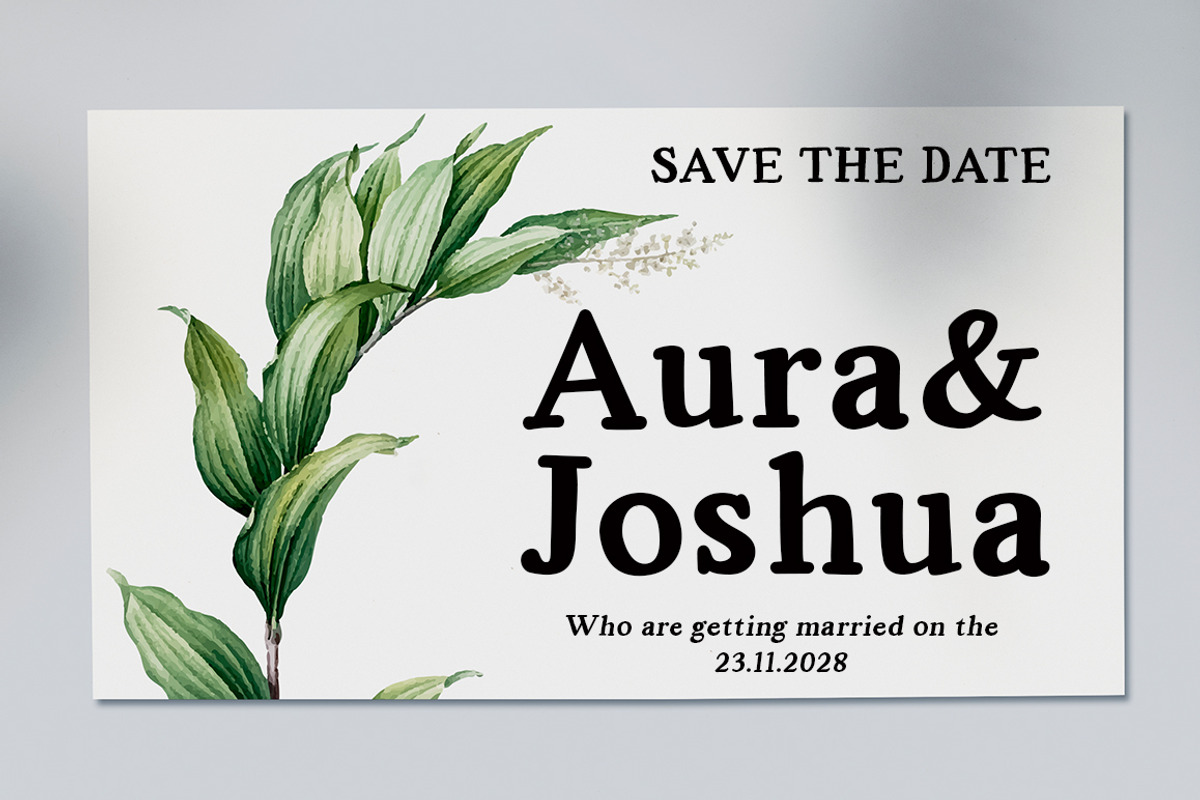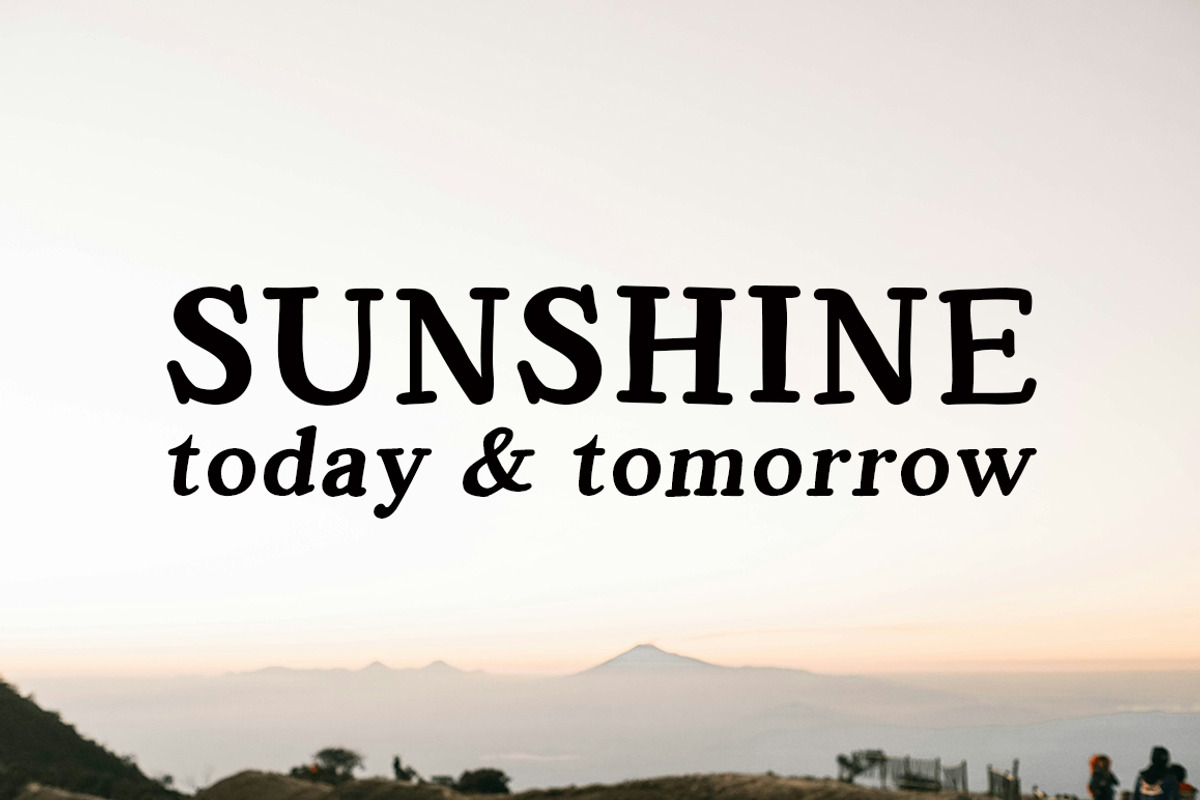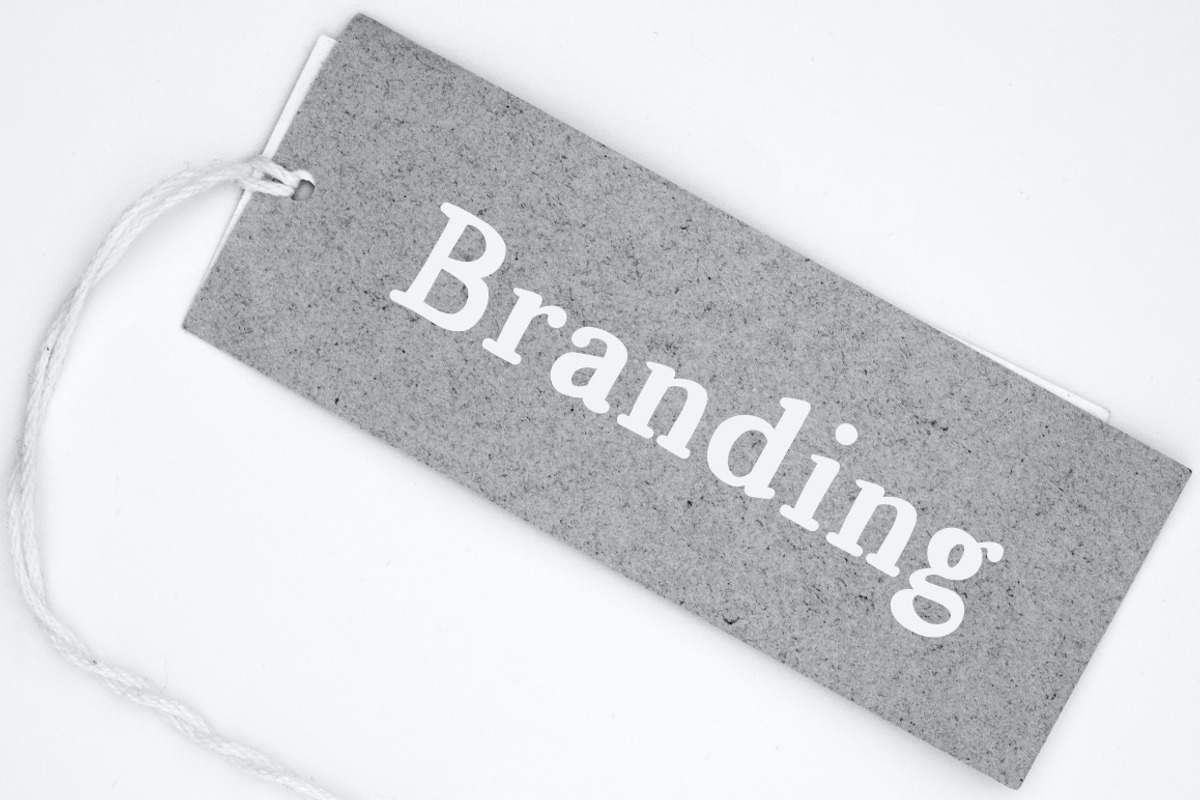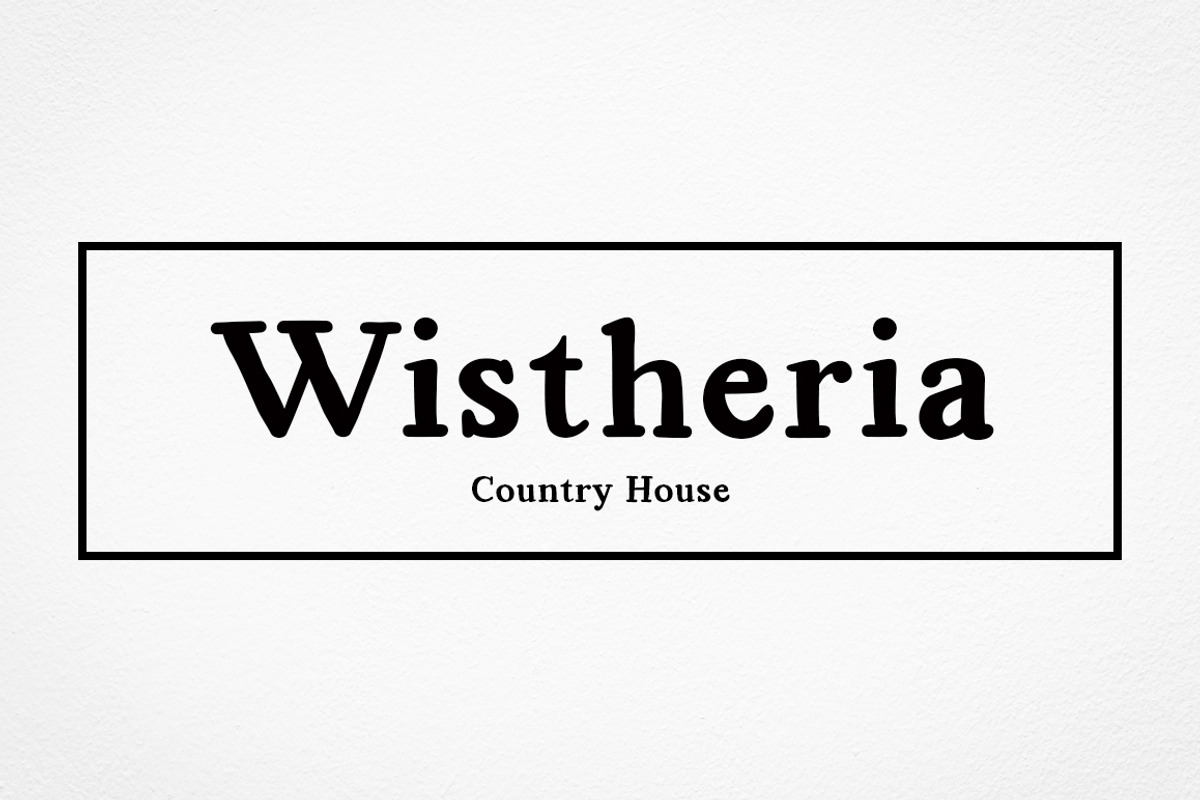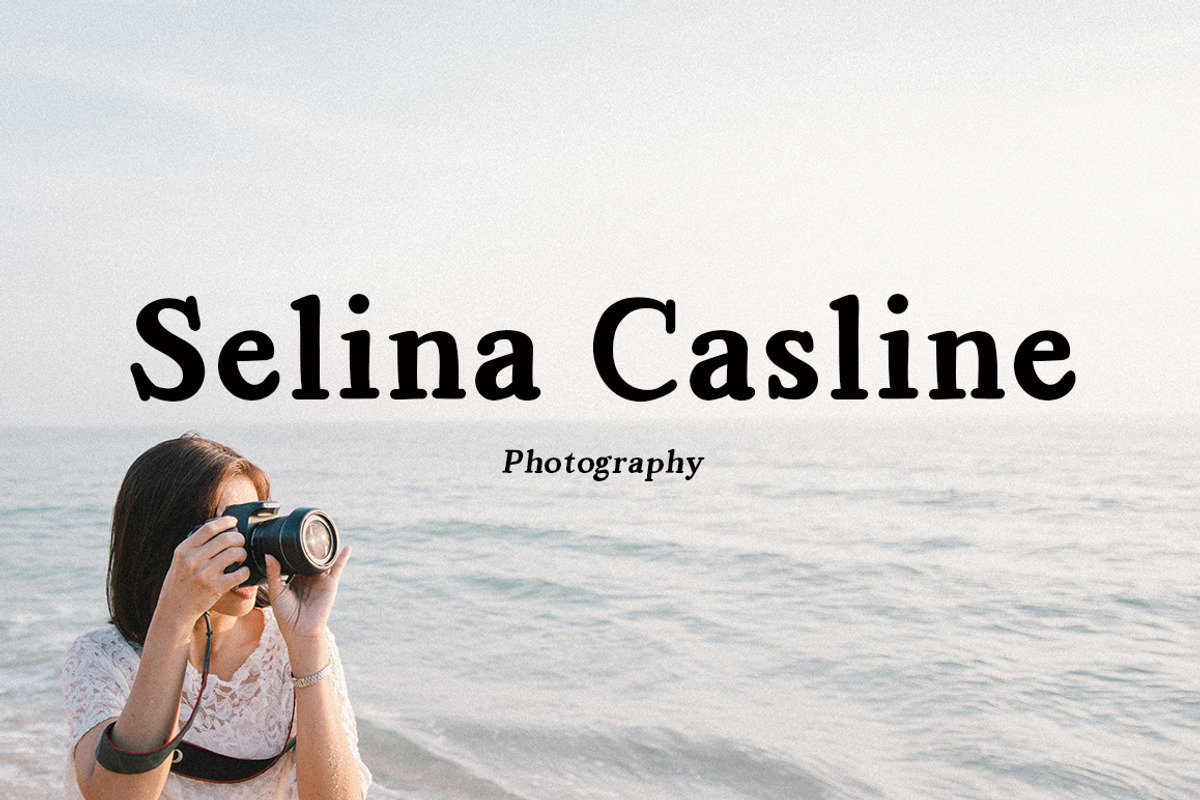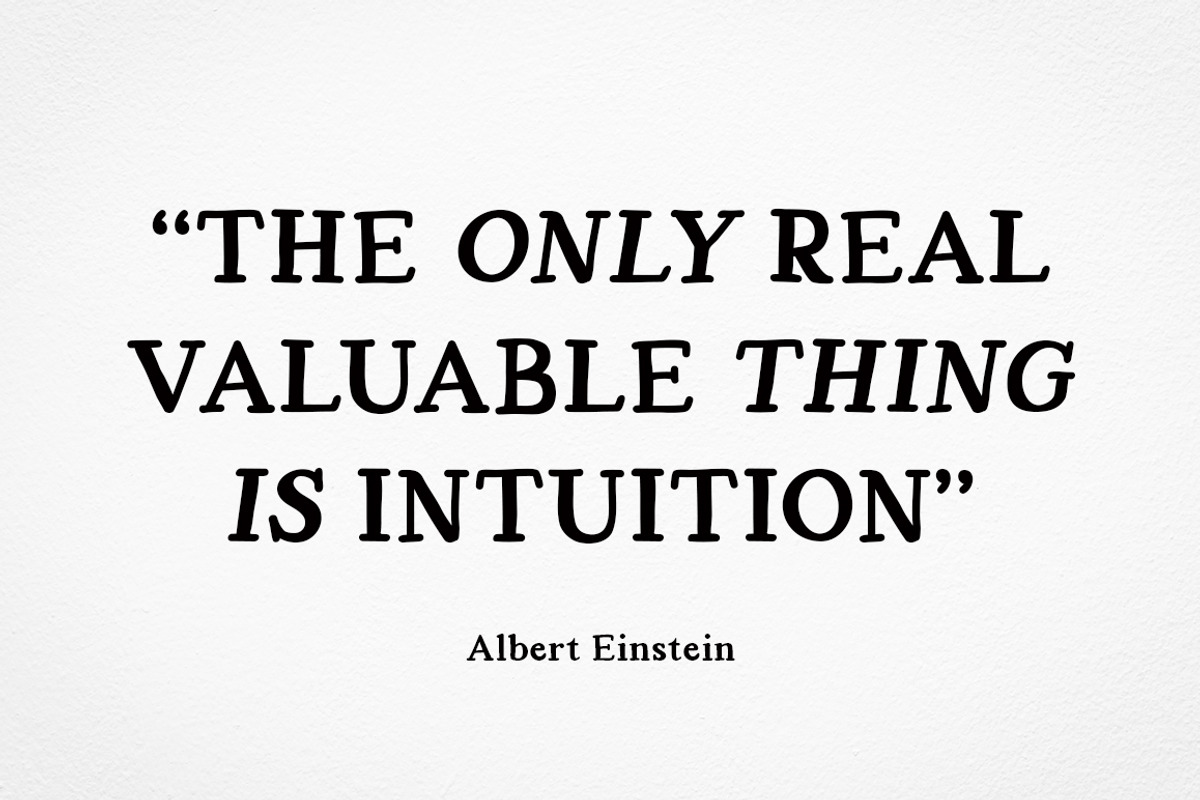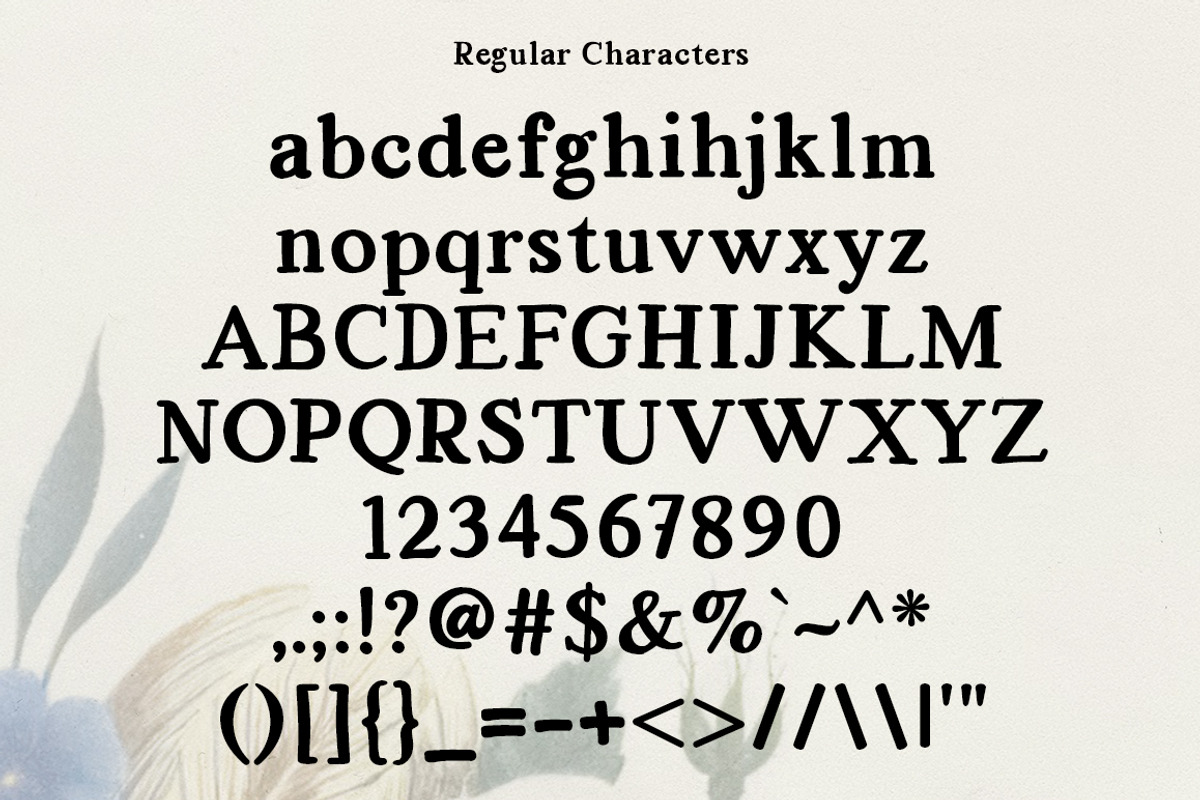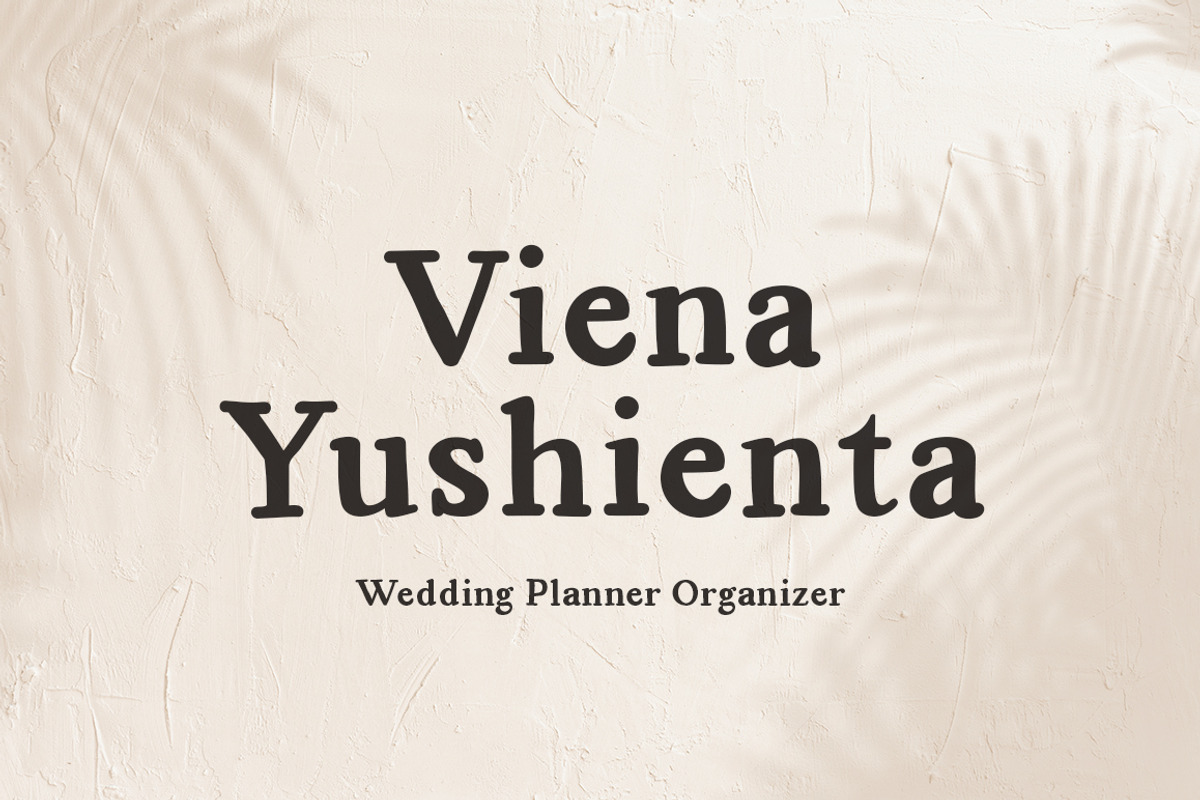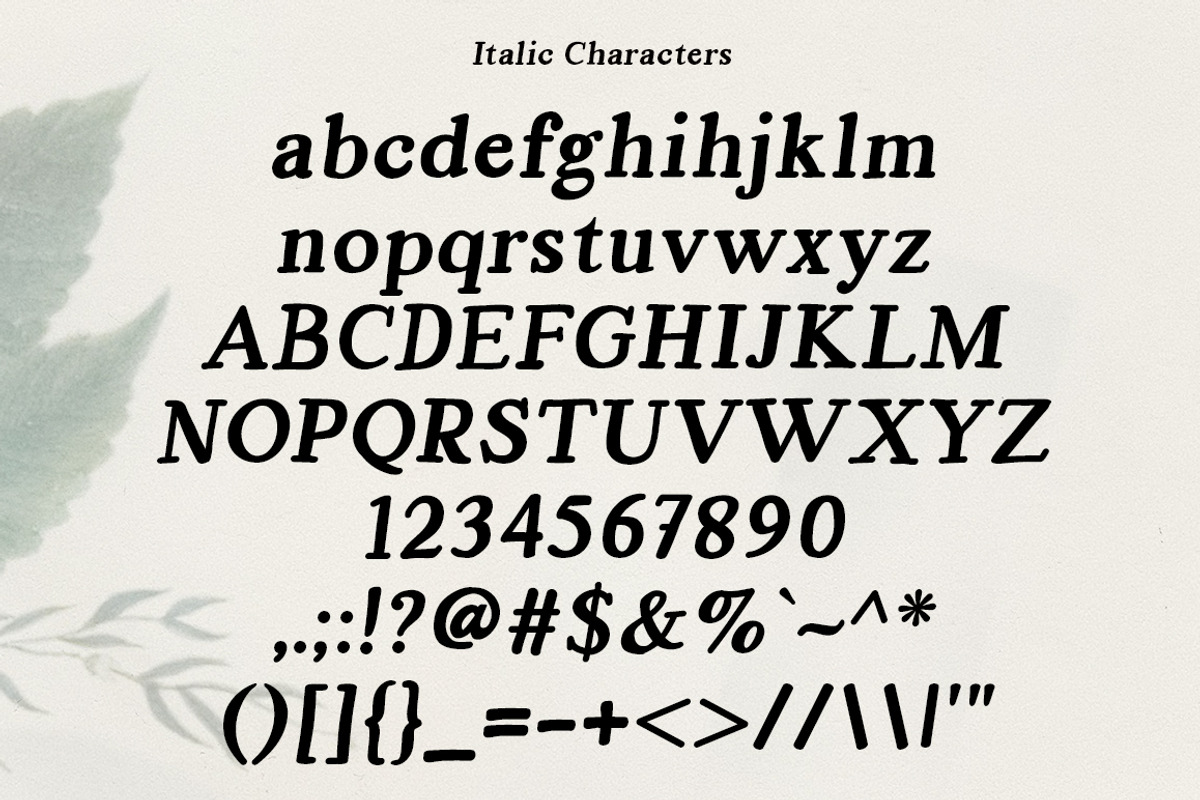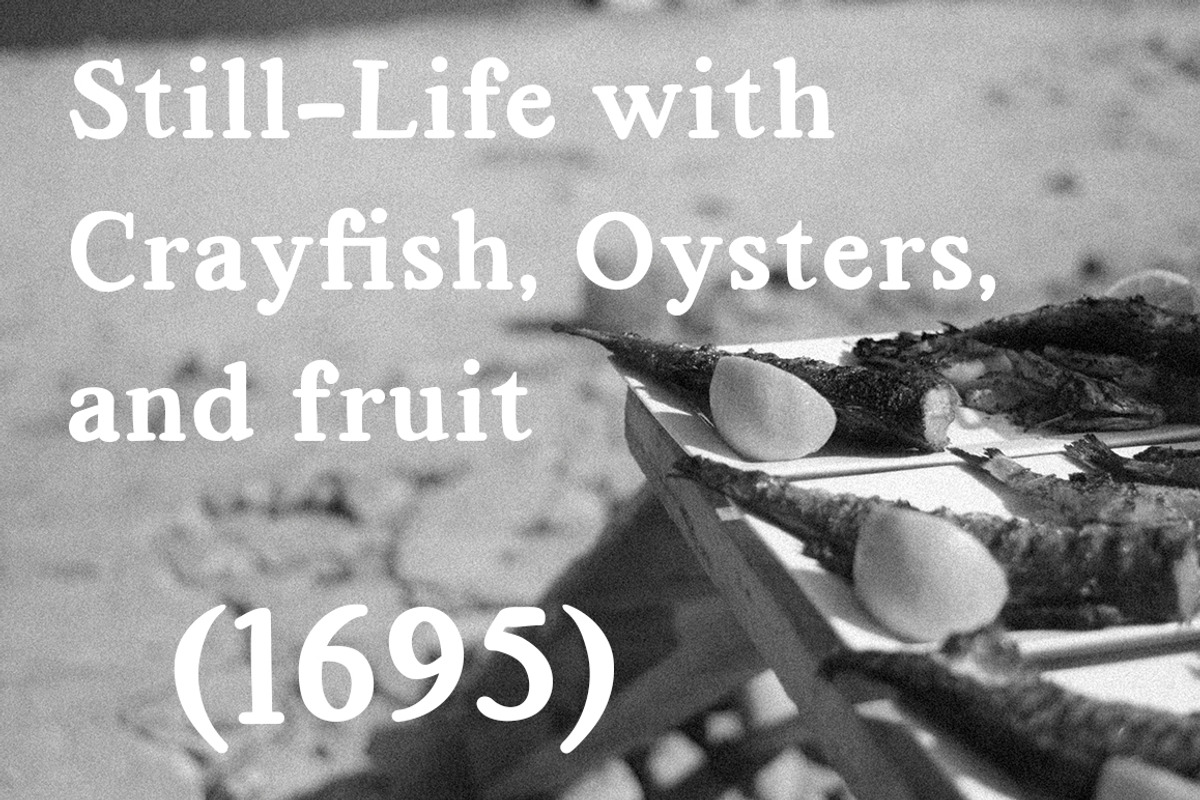
Absture | Vintage Serif Font
Absture – Vintage Serif Font
Absture is a vintage serif font that brings a classic, elegant, and bold character to your designs. Featuring strong letterforms, subtle contrast, and distinctive serif details, this typeface blends retro charm with a modern touch.
Perfect for a wide range of creative projects, including:
Logo and branding
Posters and editorial design
Product packaging
Book and magazine titles
Vintage-style social media content
Absture is carefully crafted to deliver a warm, authentic, and timeless feel, making it an excellent choice for brands that want to stand out with a refined vintage aesthetic.
Uppercase & lowercase letters
Bold, highly legible style
Versatile for both display and text use